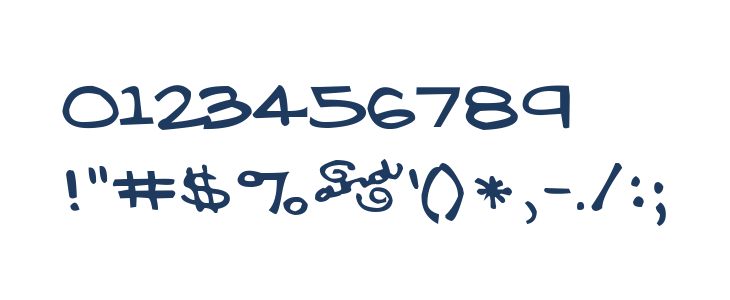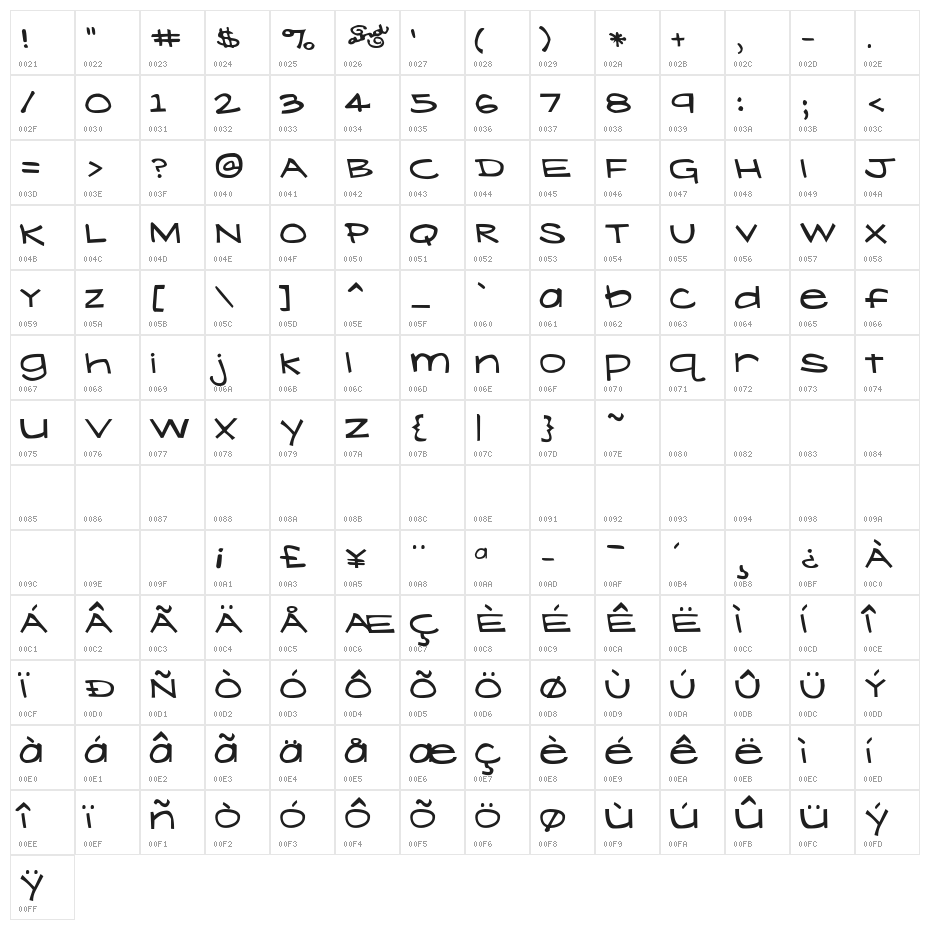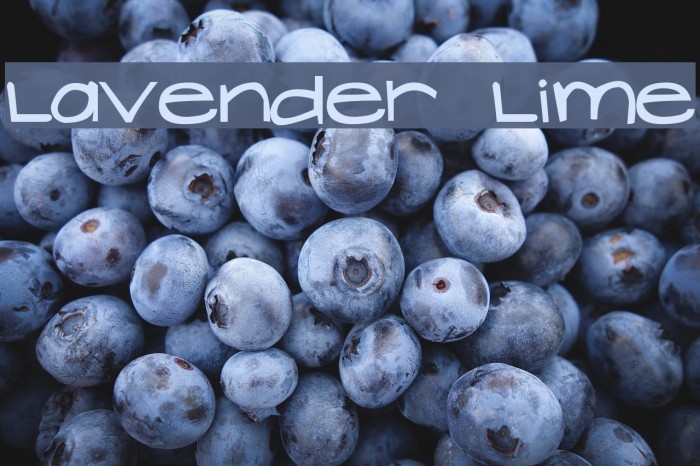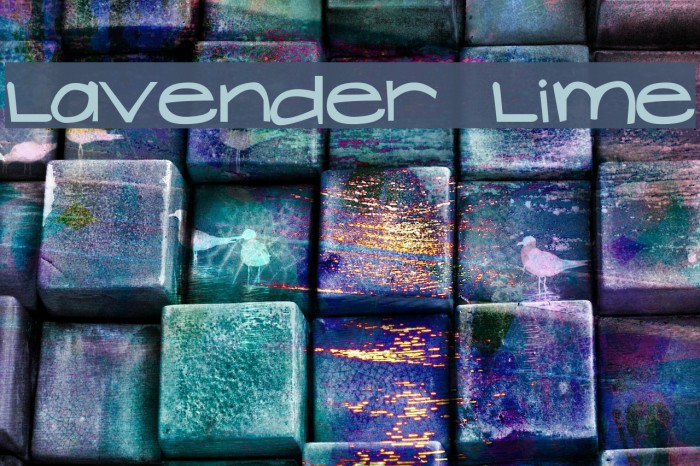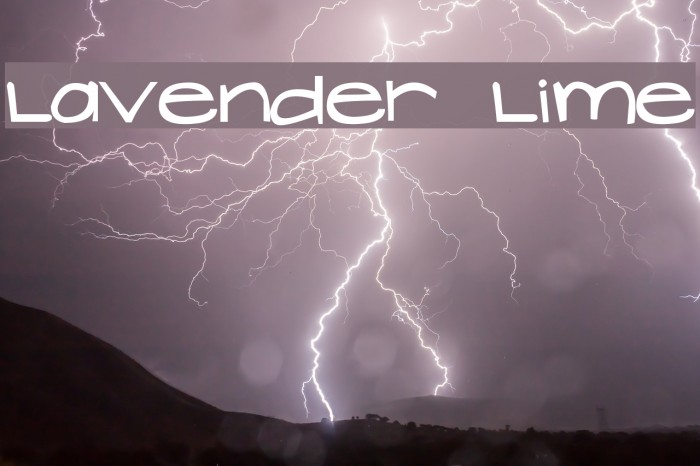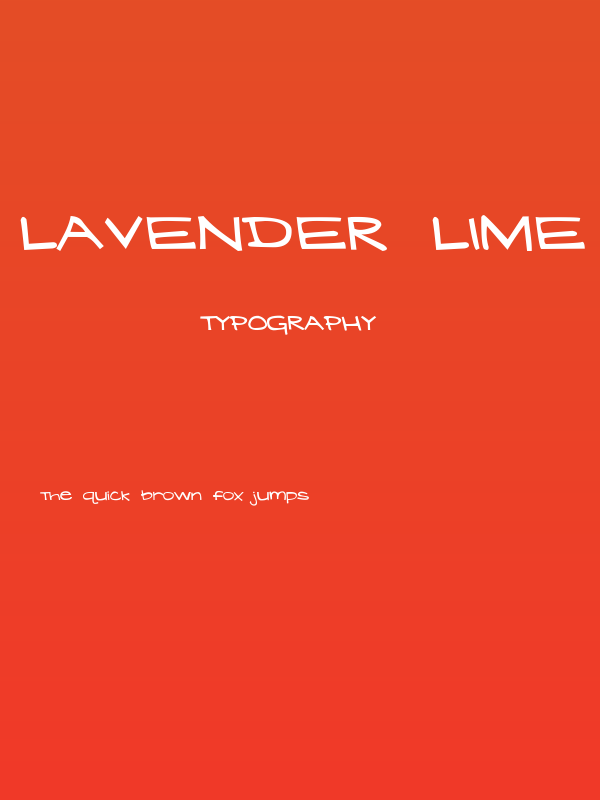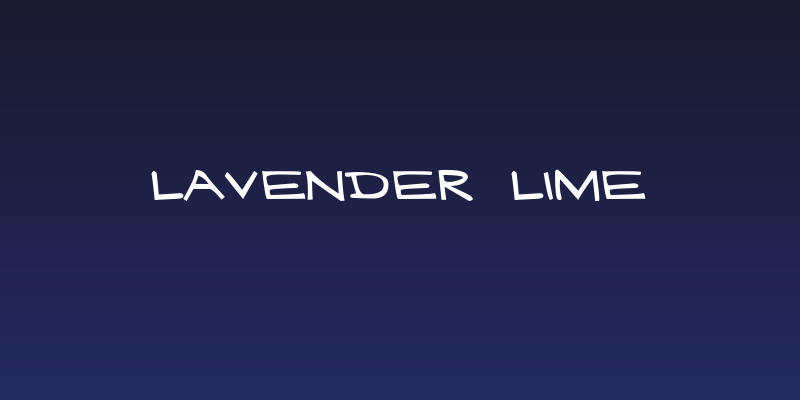
Lavender Lime Font
Lavender Lime Description
This playful and whimsical font features a unique, hand-drawn style with a casual and friendly appearance. The characters are slightly tilted, adding a sense of movement and energy. The strokes are smooth and rounded, giving it a soft and approachable feel. The uppercase and lowercase letters maintain a consistent style, with a slight variation in size and shape that enhances its informal charm. The numerals and special characters are designed to match the overall aesthetic, making it versatile for various creative projects.